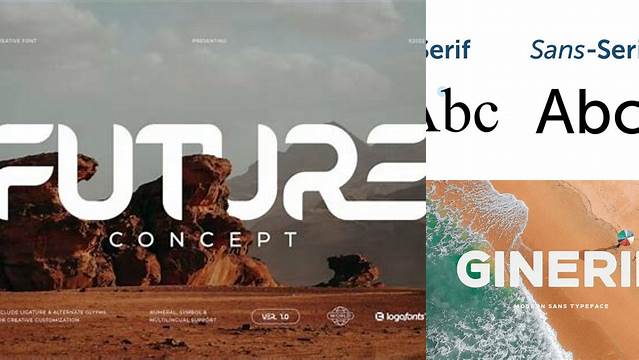
Best Modern Sans Serif Fonts For 2025
Introduction to Modern Sans Serif Fonts
Modern sans serif fonts are the workhorses of the design world, guys. They're clean, versatile, and super readable, making them perfect for everything from website body text to eye-catching headlines. In 2025, these fonts continue to dominate the design landscape, but with fresh twists and innovative styles. Understanding modern sans serif fonts involves recognizing their fundamental characteristics: simplicity, geometric shapes, and a lack of serifs (those little feet at the end of letter strokes). This makes them appear sleek and contemporary, aligning well with current design trends that emphasize minimalism and clarity. The evolution of these fonts has been driven by technological advancements and changing aesthetic preferences. Early sans serif fonts, like Akzidenz-Grotesk, paved the way for a new era of typography, moving away from the ornate styles of the past. Today, designers have a vast array of options, each with its unique personality and application. When selecting a modern sans serif font, consider the project's goals and target audience. Is it for a corporate website that needs to convey professionalism? Or a trendy startup looking to project innovation? The right font can significantly enhance the overall message and brand identity. Exploring the different categories and styles within the modern sans serif family will help you make informed decisions and create visually compelling designs. Think about fonts like Montserrat, Open Sans, and Lato – these are popular choices for a reason: they're versatile, legible, and aesthetically pleasing. By understanding the nuances of these fonts, you can effectively communicate your message and elevate your design projects.
The Rise of Geometric Sans Serif Fonts
Geometric sans serif fonts are having a major moment, and for good reason. These fonts are built on, well, geometric shapes! Think perfect circles, squares, and triangles forming the basis of the letterforms. This gives them a super clean and structured look, making them ideal for designs that need a touch of sophistication and modernity. The rise of geometric sans serif fonts can be attributed to their ability to convey clarity and precision. The consistent, mathematically precise forms create a sense of order and visual harmony, which is particularly appealing in today's digital-centric world. Brands often use these fonts to project an image of reliability and innovation, as the clean lines and simple shapes resonate with a sense of trustworthiness and forward-thinking. Popular examples of geometric sans serif fonts include Futura, Montserrat, and Circular. Futura, designed in the 1920s, remains a timeless classic, admired for its pure geometric forms and elegant simplicity. Montserrat, a more contemporary option, balances geometric precision with a friendly, approachable feel. Circular, used by platforms like Airbnb, exemplifies the modern application of geometric fonts in branding. When using geometric sans serif fonts, it's important to consider the overall design context. While their simplicity makes them highly versatile, they can sometimes appear too sterile if not balanced with other design elements. Pairing them with warmer, more organic fonts or incorporating playful color palettes can add personality and prevent the design from feeling too cold. These fonts are particularly effective in logos, headlines, and other display settings where their clean lines can make a strong visual impact. In body text, they can provide excellent readability, especially in digital environments. By understanding the characteristics and best uses of geometric sans serif fonts, you can leverage their visual appeal to create compelling and effective designs.
Humanist Sans Serif Fonts: A Blend of Warmth and Modernity
Humanist sans serif fonts are like the friendly neighbor of the font world. They bring a touch of warmth and personality to the clean lines of sans serifs. Unlike their geometric cousins, humanist fonts are inspired by traditional handwriting, giving them a more organic and approachable feel. This makes them fantastic for projects where you want to convey both modernity and trustworthiness. The charm of humanist sans serif fonts lies in their subtle variations in stroke weight and letterform, mimicking the natural rhythm of handwritten text. This gives them a more dynamic and engaging quality compared to the uniform strokes of geometric fonts. They're often characterized by their open counters (the enclosed spaces within letters) and their calligraphic influences, which add to their readability and visual appeal. Some popular examples of humanist sans serif fonts include Gill Sans, Myriad, and Open Sans. Gill Sans, a classic British typeface, is known for its elegance and readability, making it a favorite for both print and digital applications. Myriad, used extensively by Apple, combines a modern aesthetic with a warm, approachable feel. Open Sans, designed with screen readability in mind, is widely used for websites and user interfaces, thanks to its clear and friendly appearance. When using humanist sans serif fonts, consider the overall tone and message of your design. They are particularly well-suited for projects that require a balance of professionalism and warmth, such as branding for ethical businesses, educational materials, and user-friendly websites. Their natural readability makes them an excellent choice for body text, while their distinct letterforms can also add character to headlines and logos. Pairing them with serif fonts in headings can create a sophisticated contrast, or using them in a variety of weights can add visual interest while maintaining a cohesive look. By understanding the unique qualities of humanist sans serif fonts, you can effectively harness their warmth and readability to create designs that resonate with your audience.
The Enduring Popularity of Neo-Grotesque Fonts
Neo-grotesque fonts are the unsung heroes of typography. They're the fonts that just work, you know? Super versatile, incredibly readable, and they've got this timeless quality that makes them a go-to for designers everywhere. They're basically the little black dress of the font world – always in style. The enduring popularity of neo-grotesque fonts stems from their clean, neutral design and exceptional legibility. These fonts, which emerged in the mid-20th century, are characterized by their uniform stroke weight, simple letterforms, and understated elegance. They strike a perfect balance between functionality and aesthetics, making them suitable for a wide range of applications, from corporate branding to editorial design. One of the defining features of neo-grotesque fonts is their subtle variations and refined details, which contribute to their overall sophistication. Unlike geometric sans serifs, which are based on strict geometric shapes, neo-grotesques have a slightly more organic feel, making them more comfortable to read in longer texts. This makes them an ideal choice for body text in books, magazines, and websites. Some of the most iconic neo-grotesque fonts include Helvetica, Arial, and Univers. Helvetica, perhaps the most famous typeface in this category, is renowned for its clarity and versatility. Arial, often seen as a Helvetica alternative, shares many of its characteristics but has subtle differences in letter proportions. Univers, another classic, is praised for its systematic design and extensive family of weights and styles. When using neo-grotesque fonts, consider their neutrality as both a strength and a potential limitation. Their clean design allows them to blend seamlessly into various contexts, but it also means they may not bring as much personality or character as some other typefaces. Pairing them with more expressive fonts or incorporating unique design elements can help add visual interest. They excel in situations where readability and clarity are paramount, such as user interfaces, signage, and corporate communications. By understanding the nuances of neo-grotesque fonts, you can leverage their timeless appeal and functionality to create designs that are both effective and aesthetically pleasing.
Exploring the Versatility of Variable Fonts
Variable fonts are like the chameleons of the font world. They can morph and adapt to fit pretty much any design need, guys. We're talking serious flexibility here. This tech allows a single font file to contain a whole range of weights, widths, and styles, making them a game-changer for designers. Exploring the versatility of variable fonts reveals their potential to revolutionize typography. Unlike traditional fonts, which require separate files for each weight and style (e.g., regular, bold, italic), a single variable font file can store a virtually unlimited number of variations. This not only reduces file sizes and improves website performance but also opens up exciting creative possibilities. The key to variable fonts lies in their use of